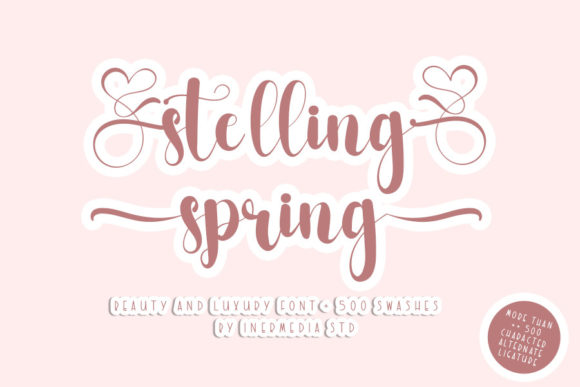
Welcome to the world of Stelling Spring, a font that captures the very essence of charm and sophistication! Its every letter dances across the page, a testament to the meticulous craftsmanship that went into its creation. With Stelling Spring, your words will take on a new life, captivating hearts and leaving a lasting impression.
Imagine a Christmas card adorned with Stelling Spring's elegant curves, each character like a delicate snowflake, whispering tales of joy and merriments. Its delicate flourishes and impeccable detailing will make your message shine brighter than the star atop a Christmas tree.
But Stelling Spring's magic isn't confined to the festive season. Whether you're crafting wedding invitations, enchanting logos, or simply adding a touch of elegance to your everyday projects, this font is your trusted companion. Its versatility knows no bounds, flowing seamlessly from playful to formal, from classic to contemporary.
With Stelling Spring by your side, you'll discover new depths of creativity. Its PUA encoding opens up a world of possibilities, allowing you to access glyphs and swashes with effortless ease. Unleash your imagination and create designs that dance off the page, leaving your audience spellbound.